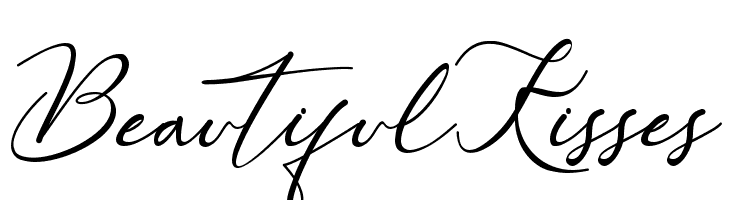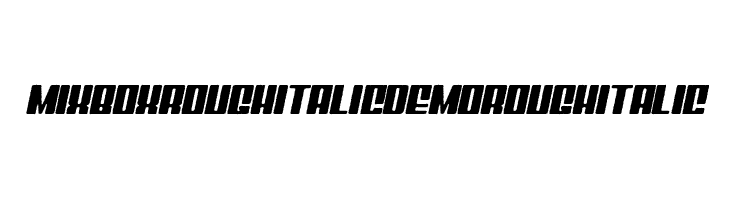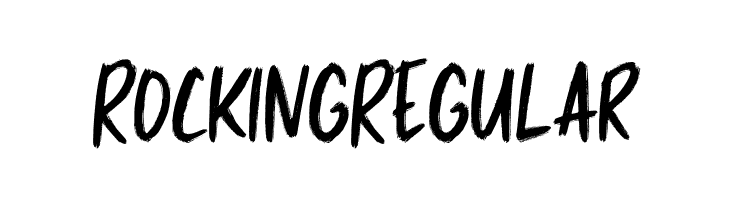
A tall, narrow, and playful font with consistent stroke width.
A bold, hand-drawn font with a rugged and impactful design.
A flowing, cursive font with elegant, sweeping strokes and a handwritten appearance.
A playful, bold font with rounded, bubbly characters perfect for fun and creative projects.
A bold, italicized font with a futuristic and dynamic style.
A bold, italic script font with elegant, flowing letterforms.
A bold, geometric font with a modern, industrial style.
A modern, elegant handwritten font with fluid strokes and a dynamic slant.
A decorative and ornate font with intricate curls and swirls.
A distressed, hand-drawn font with a playful, nostalgic style.